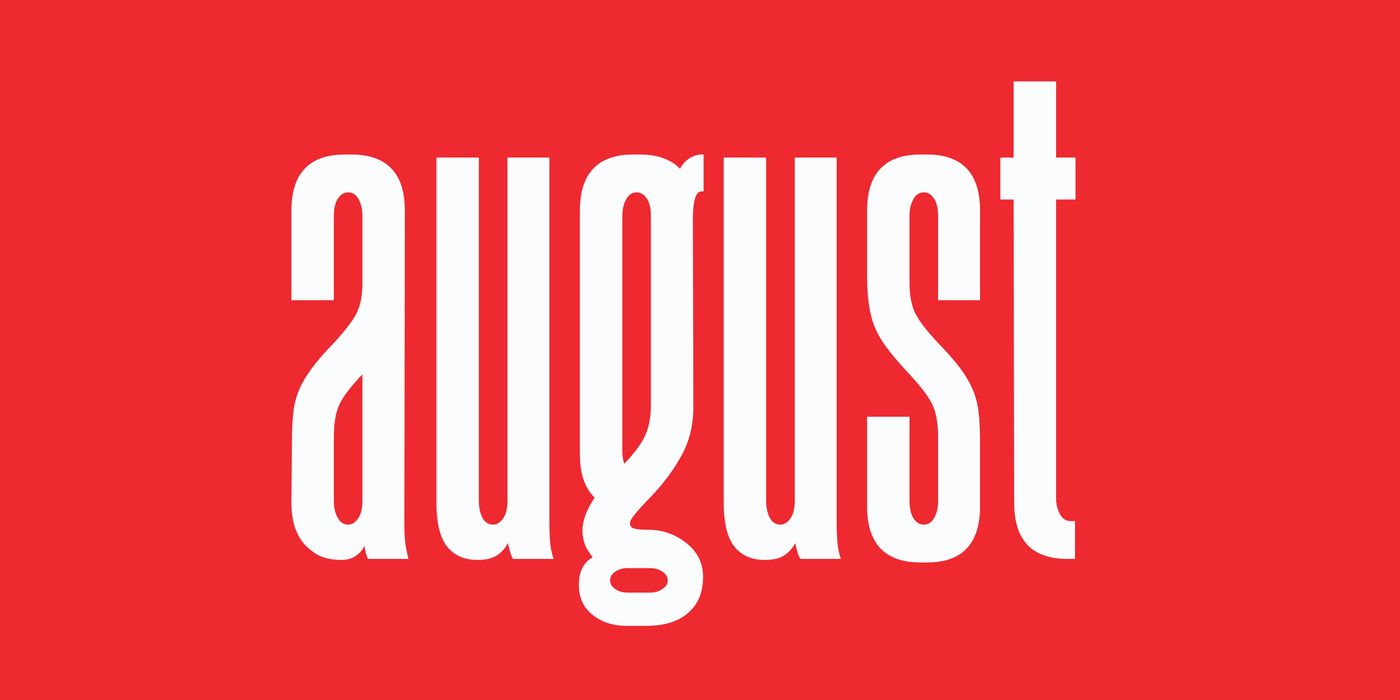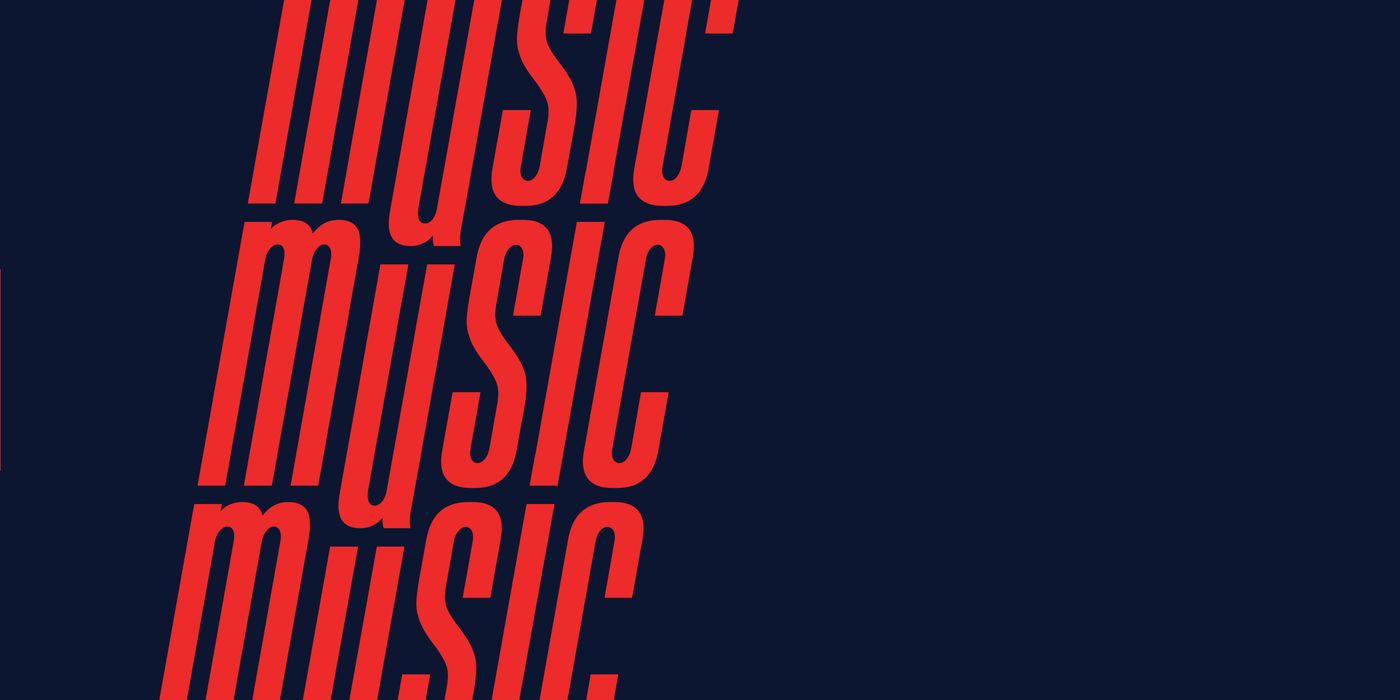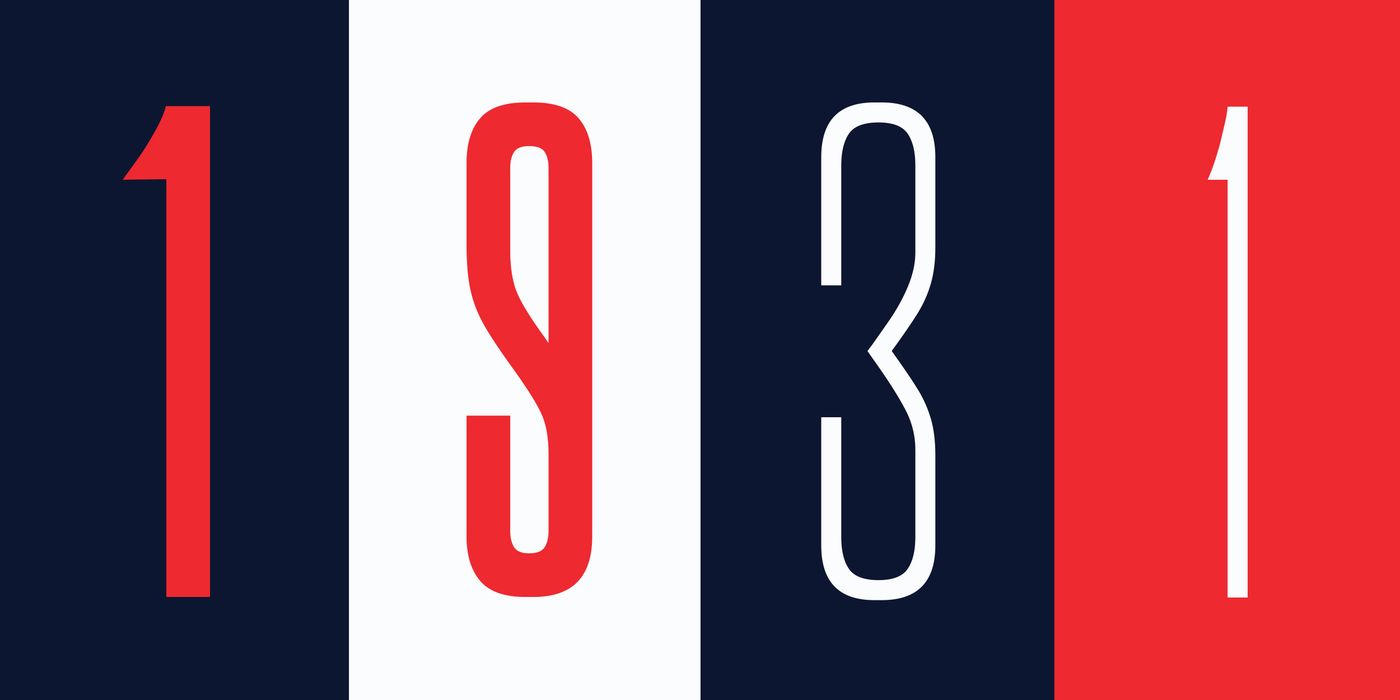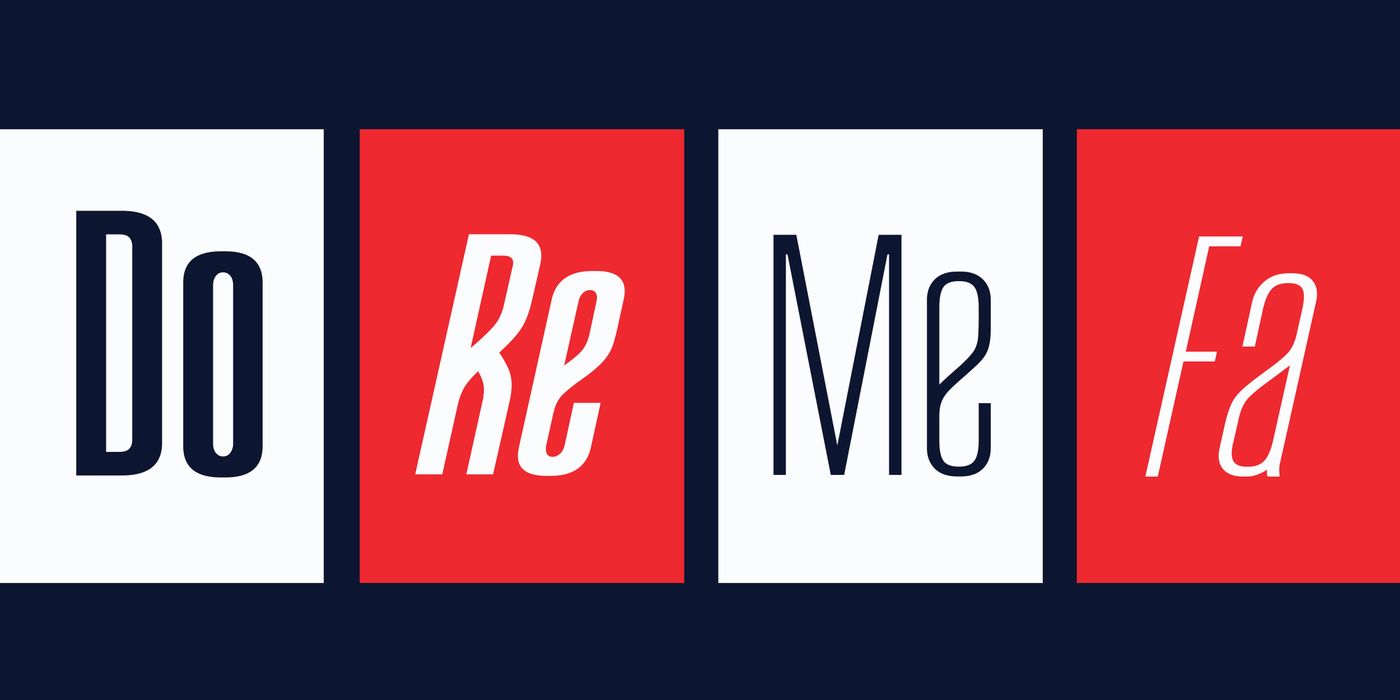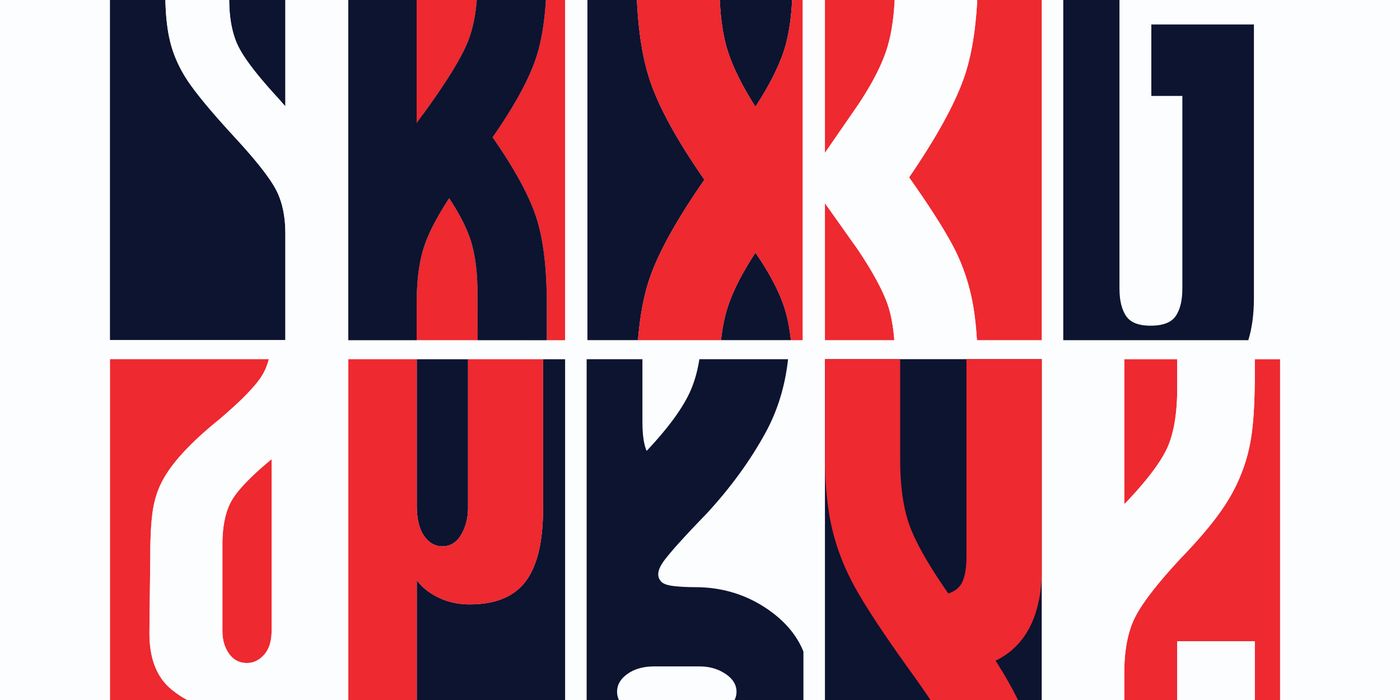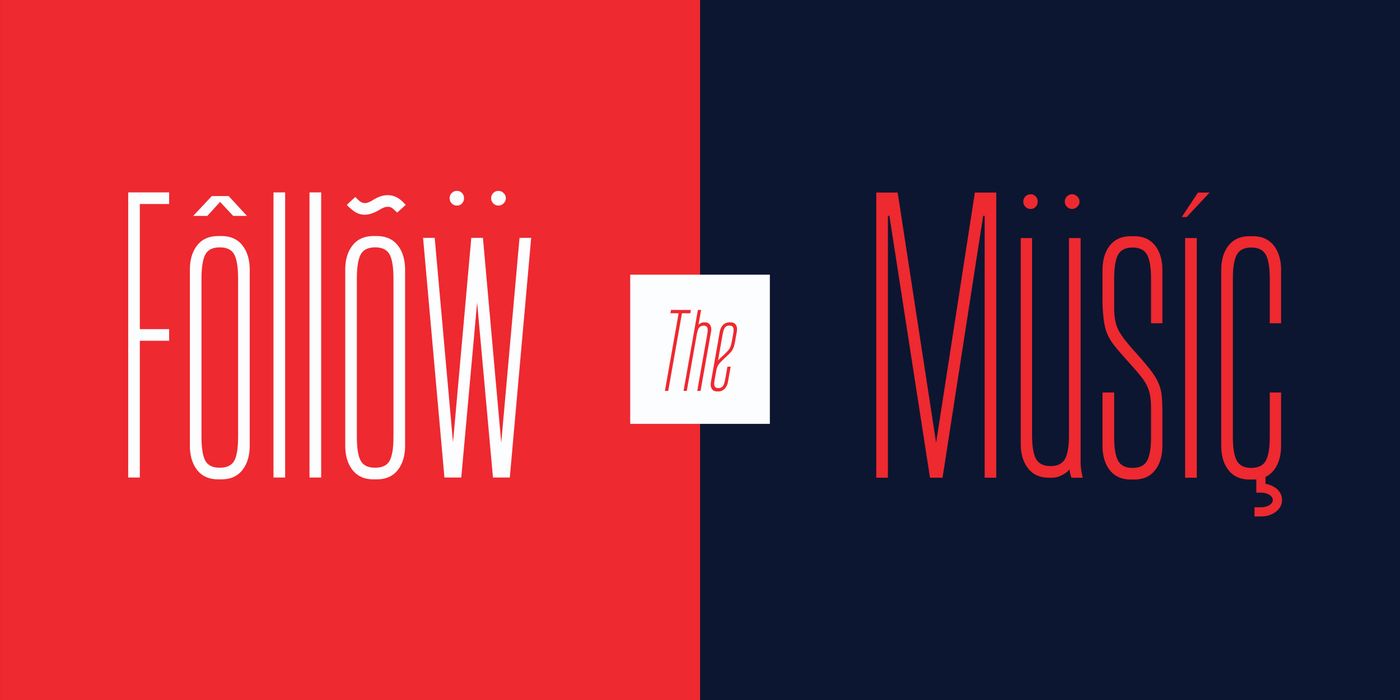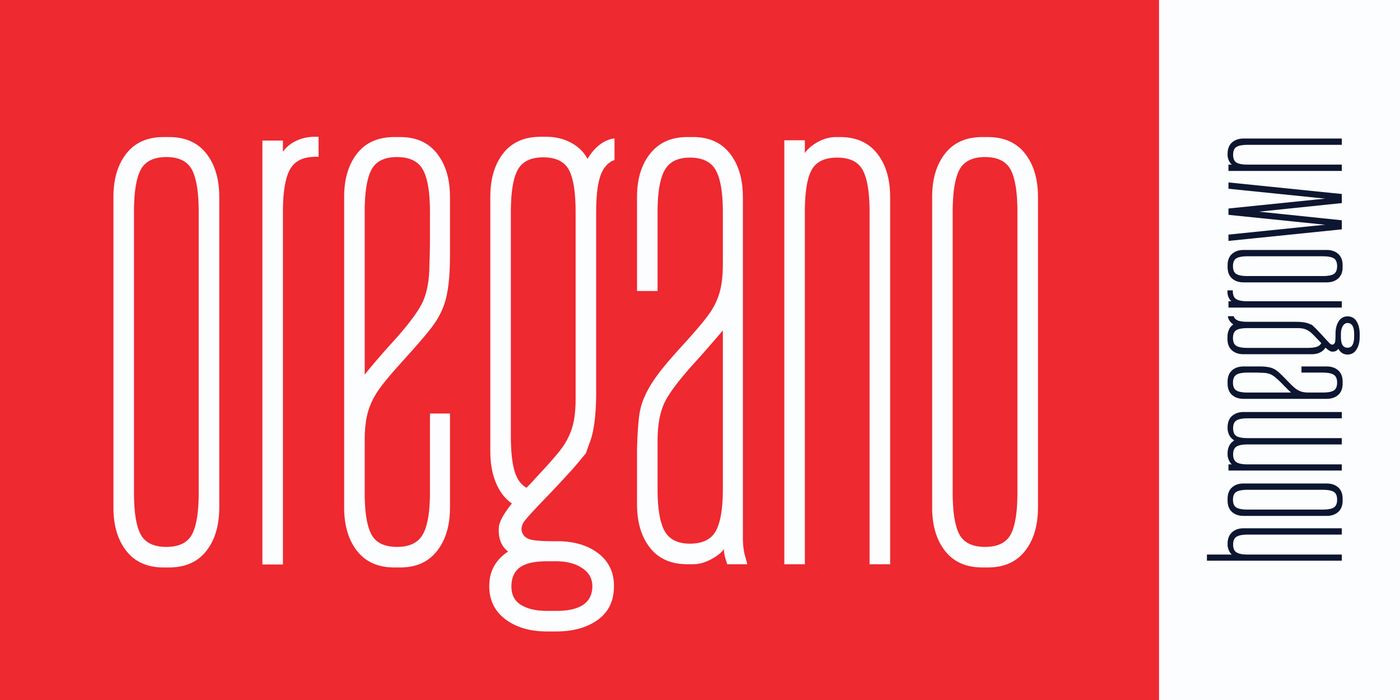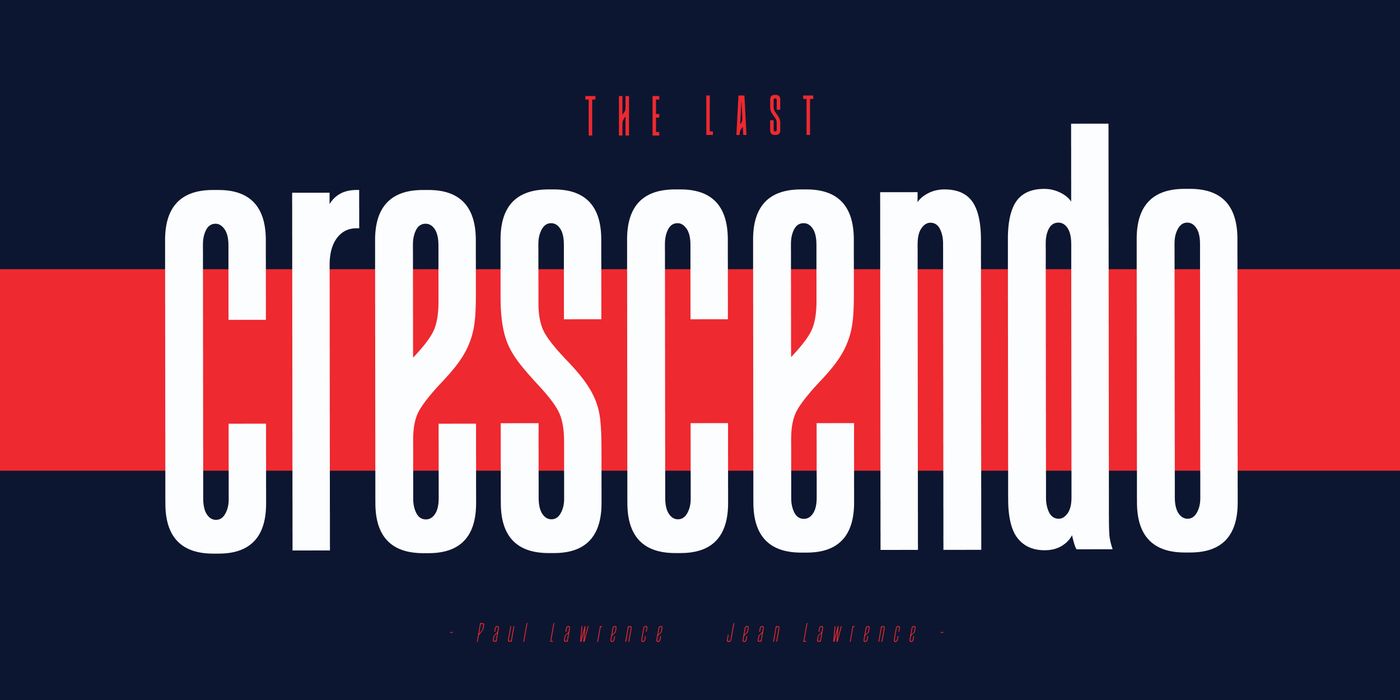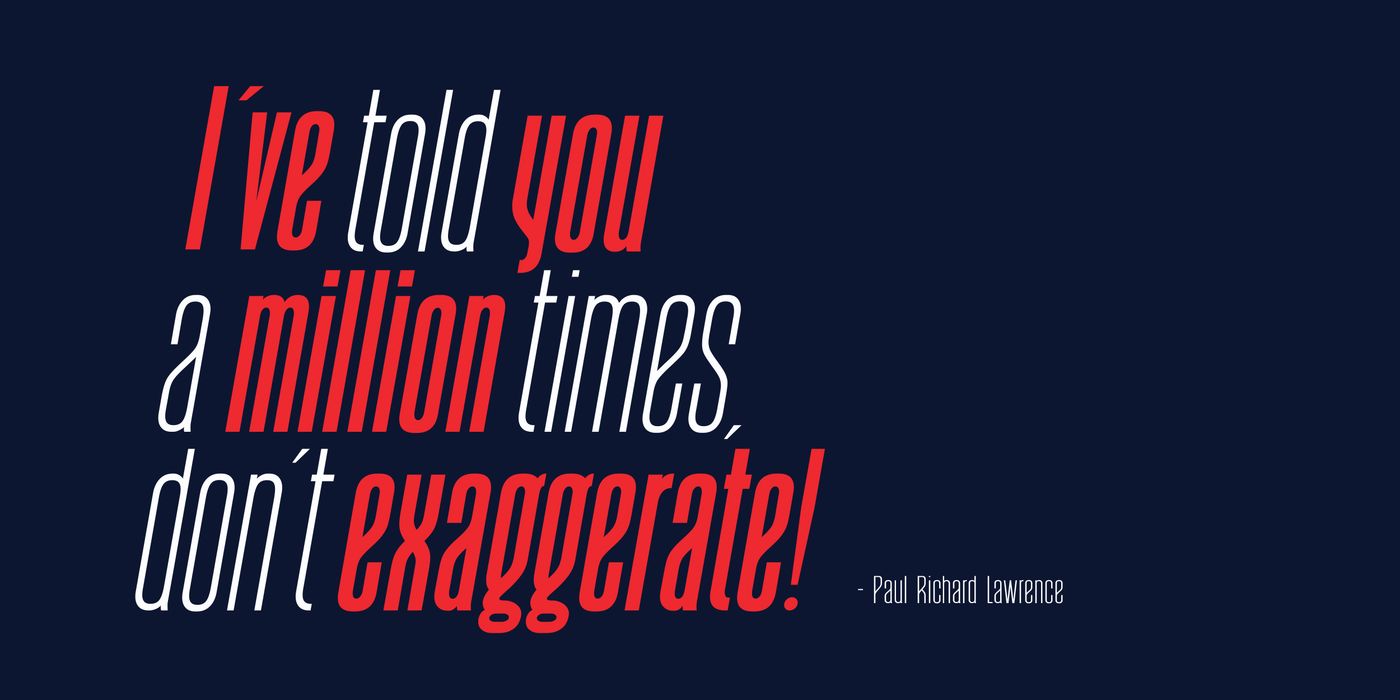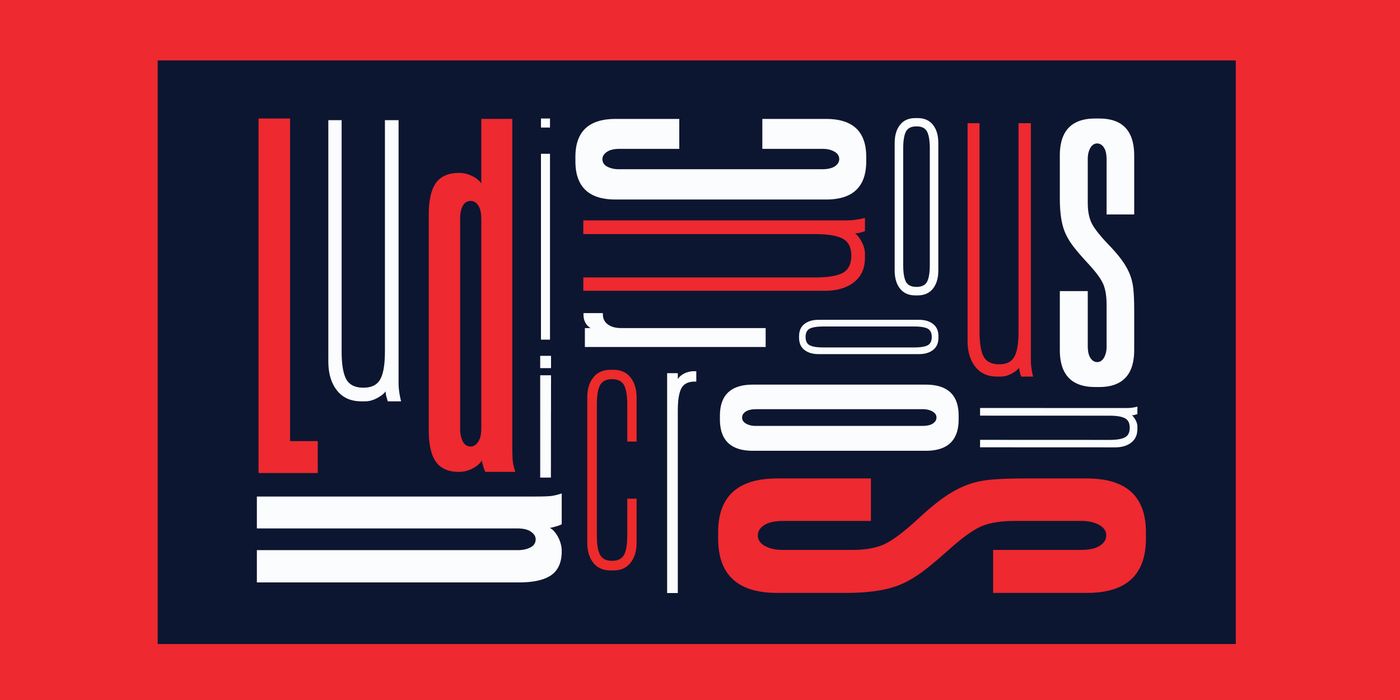
August, from Ellen Luff Type Foundry, is a magnificent play of extremes. A powerful and beautiful condensed sans serif display typeface. It brings charming curves and satisfying patterns to traditional condensed fonts. It’s designed for impact, without sacrificing style or legibility. It looks especially stunning in large scale, although it still carries a punch at smaller point sizes. It’s born to be a blessing for designers and viewers alike! This font family is specifically designed for use in posters, headlines, titles, logos, and branding materials. August means marked by dignity. This project is in honour of my grandpa, a wonderfully august musician and grandfather.